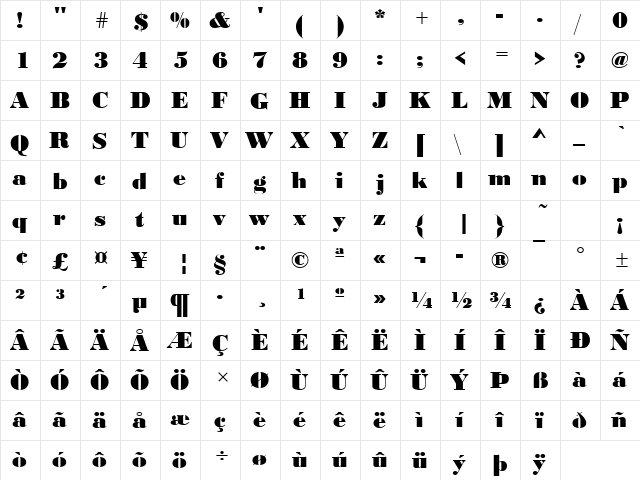
Bodoni Becker Black Regular
Design Context for Bodoni Becker Black Typeface
Bodoni Becker Black takes a measured approach to typography — its balanced proportions and neutral character make it a reliable workhorse for both digital and print work.